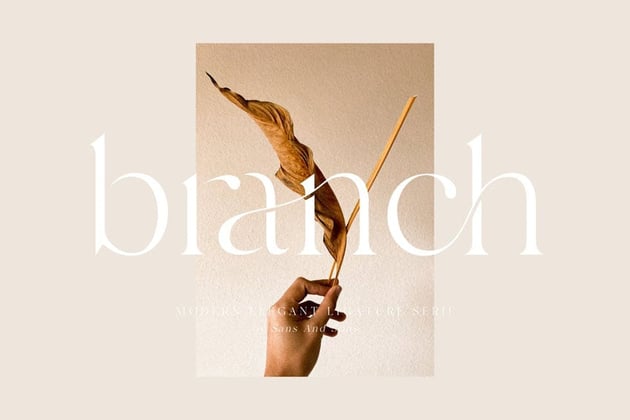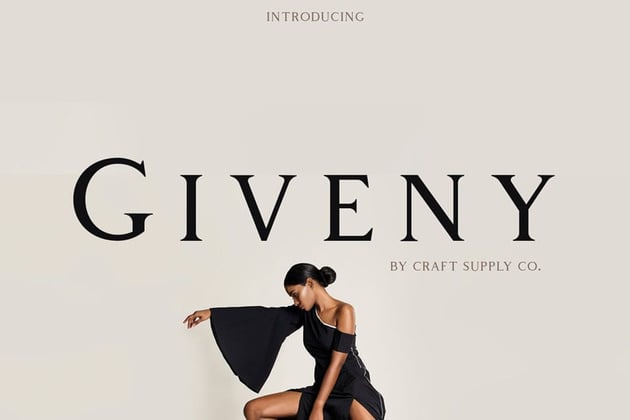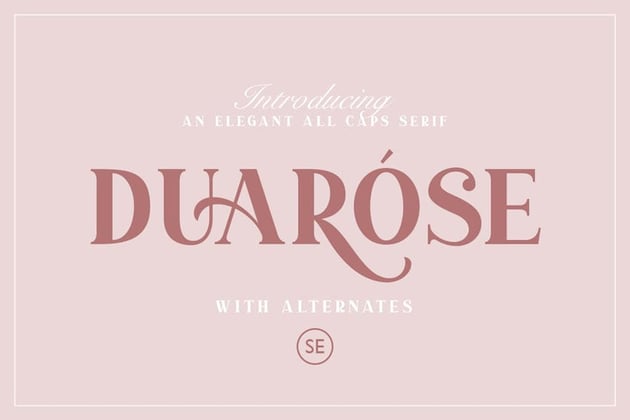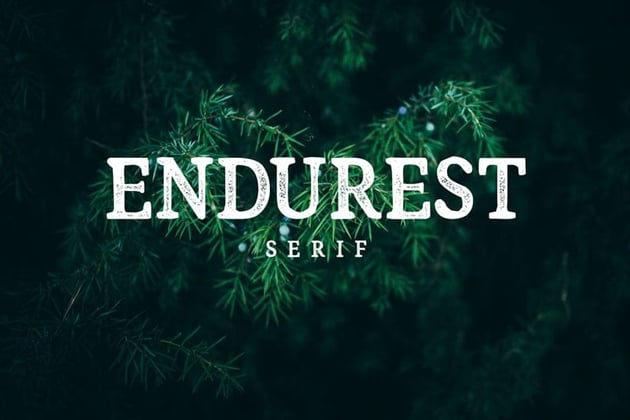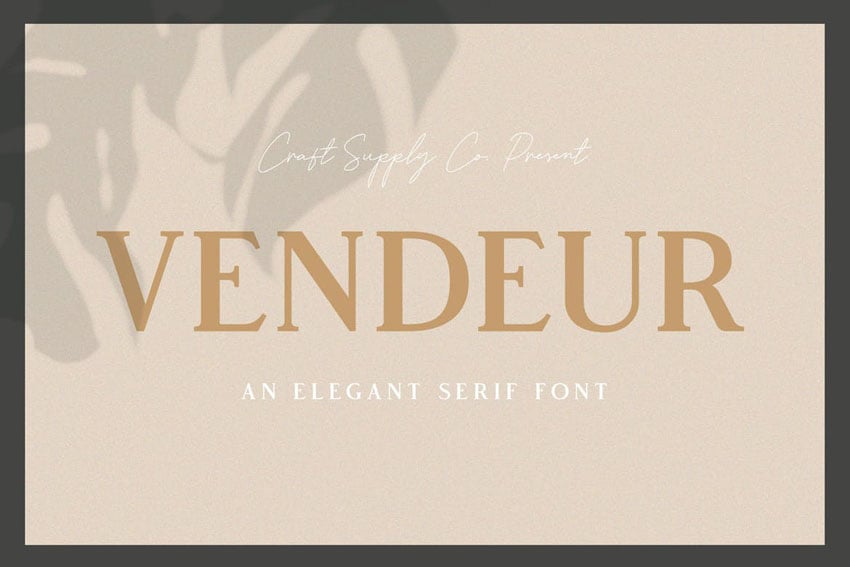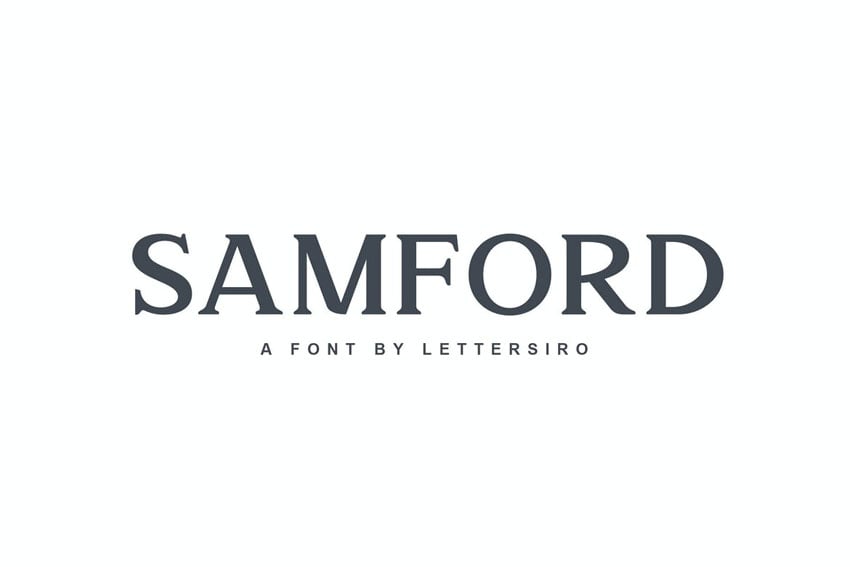
What Are Transitional Typefaces?
Transitional typefaces are often considered a "transition" between old style fonts and more modern serifs, like Didones. You'll see a lot more contrast than you'd see in an old style serif, but you won't see quite as much as you'd see in a Didone, which can be quite stark. Here we'll explore some great transitional font examples from Envato Elements.
More Transitional Typefaces Examples and Resources
There are a lot of different type classifications out there, such as old style, transitional, and modern typefaces, to name a few. Consider it a way of visually observing and identifying different fonts. If you can identify the qualities that make up a font, you can better choose the perfect font for your project.
If you're looking for a Times New Roman alternative, a transitional is likely what you're looking for. A well-known transitional typeface example would be Baskerville.
The Times New Roman font family is common in academic and professional settings, so a lot of us are very familiar with it. Let's knock out some of those frequently asked questions too.
Q: Is Times New Roman a Serif Font?
Yes, note the extended "ends" at the end of the font's stroke. Those are called serifs.
Q: What Type of Font is Times New Roman?
Times New Roman is a transitional serif typeface. It's commonly seen and used as Times New Roman regular, Times New Roman italic, and Times New Roman bold.
Q: What Does 12 Point Times New Roman Font Mean?
When someone asks "what does 12 point Times New Roman font mean", they are usually referring to common requirements in academic and research papers. The "12 point" refers to the size of the font, and it's probably one of the most common Times New Roman numbers for font size, when it comes to papers and school work, in many parts of the world.
Q: Is Times New Roman a Monospaced Font?
Times New Roman letters are proportionally spaced with a variable width. This means that Times New Roman letters are not monospaced; the Times New Roman font family is proportional, while a font like Courier would be monospaced.
But there's more to a transitional typefaces list than matching Times New Roman characteristics. Instead, let's turn to a bit of a transitional typeface history. Their first appearance was in the 18th century, and they began to visually move away from some of the more calligraphic influence in the old styles and humanist serifs. If we look at serifs, historically, we see the push continue into more modern serifs.
So we can view the transitional typeface history as just that: a transitional point for serifs. They often have a little bit of both. This is important to note when looking at modern type design—you'll likely see fonts borrow from more than one classification, and that's ok!
One of the great things about transitionals is their legibility. You'll often find a transitional font in professional settings. The overall aesthetic can have a strong air of trust and reliability. What do you think of, when you see a transitional font? They can be really dressed up for a formal and professional vibe.